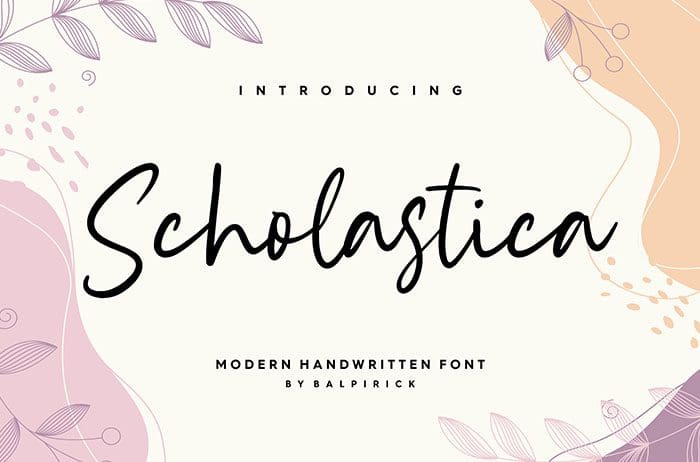
Scholastica Handwritten Font
Scholastica handwritten font is a simplified elegance font. It maintains its classy calligraphic influences while feeling contemporary and fresh. This versatility will appeal to a wide range of crafty ideas, from letterheads and titles, to stationery. Designed this font by Balpirick Studio. You can also search more freeĀ Handwritten Fonts.